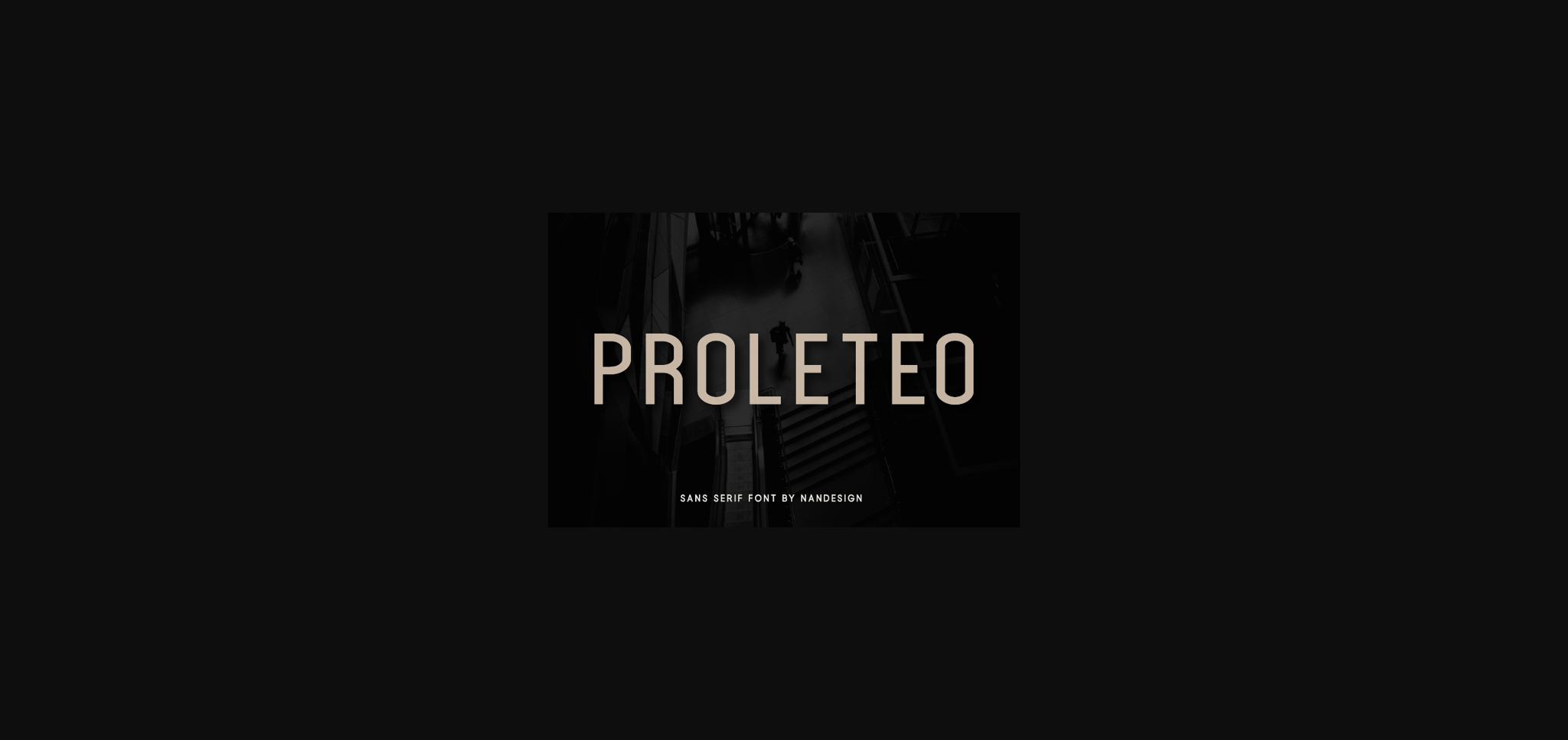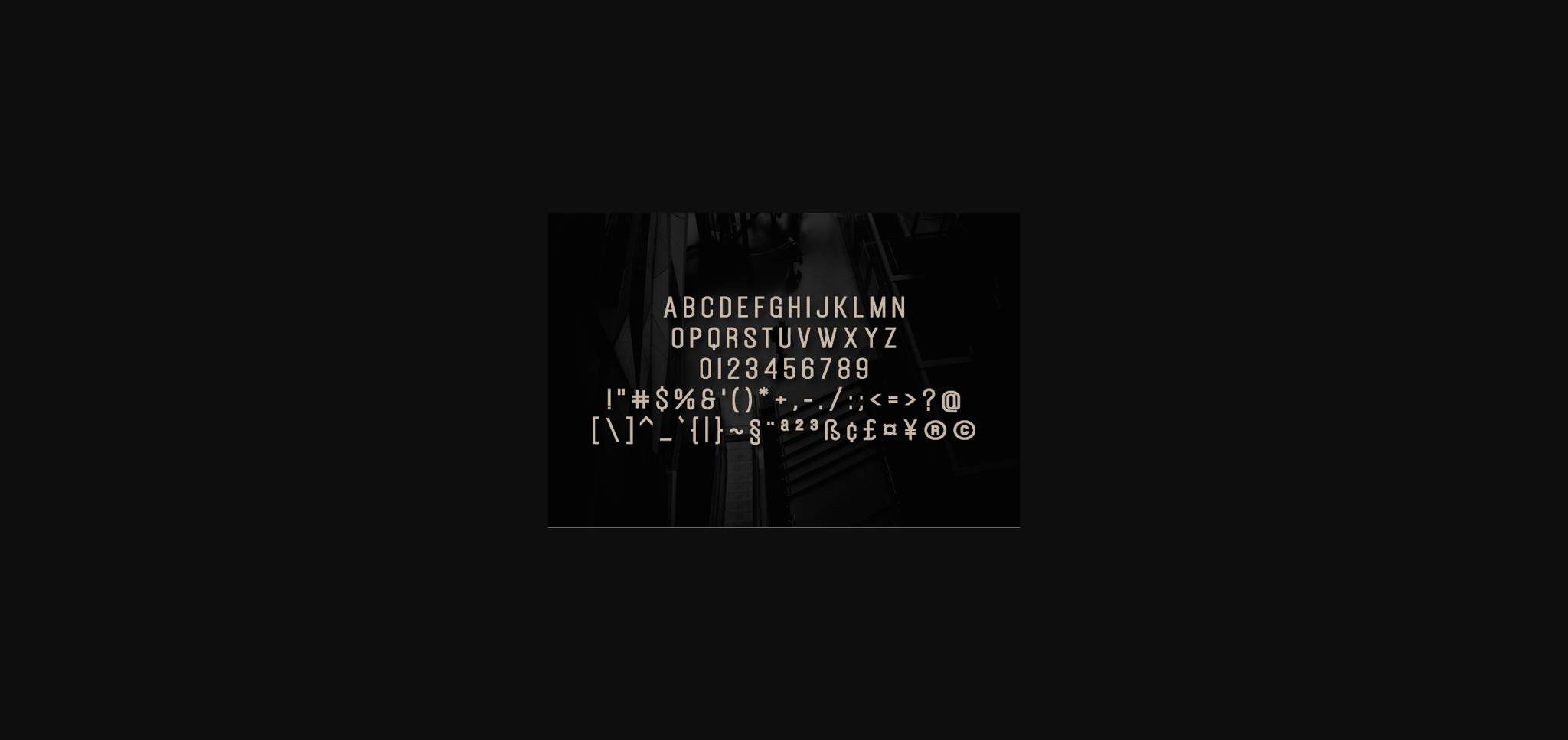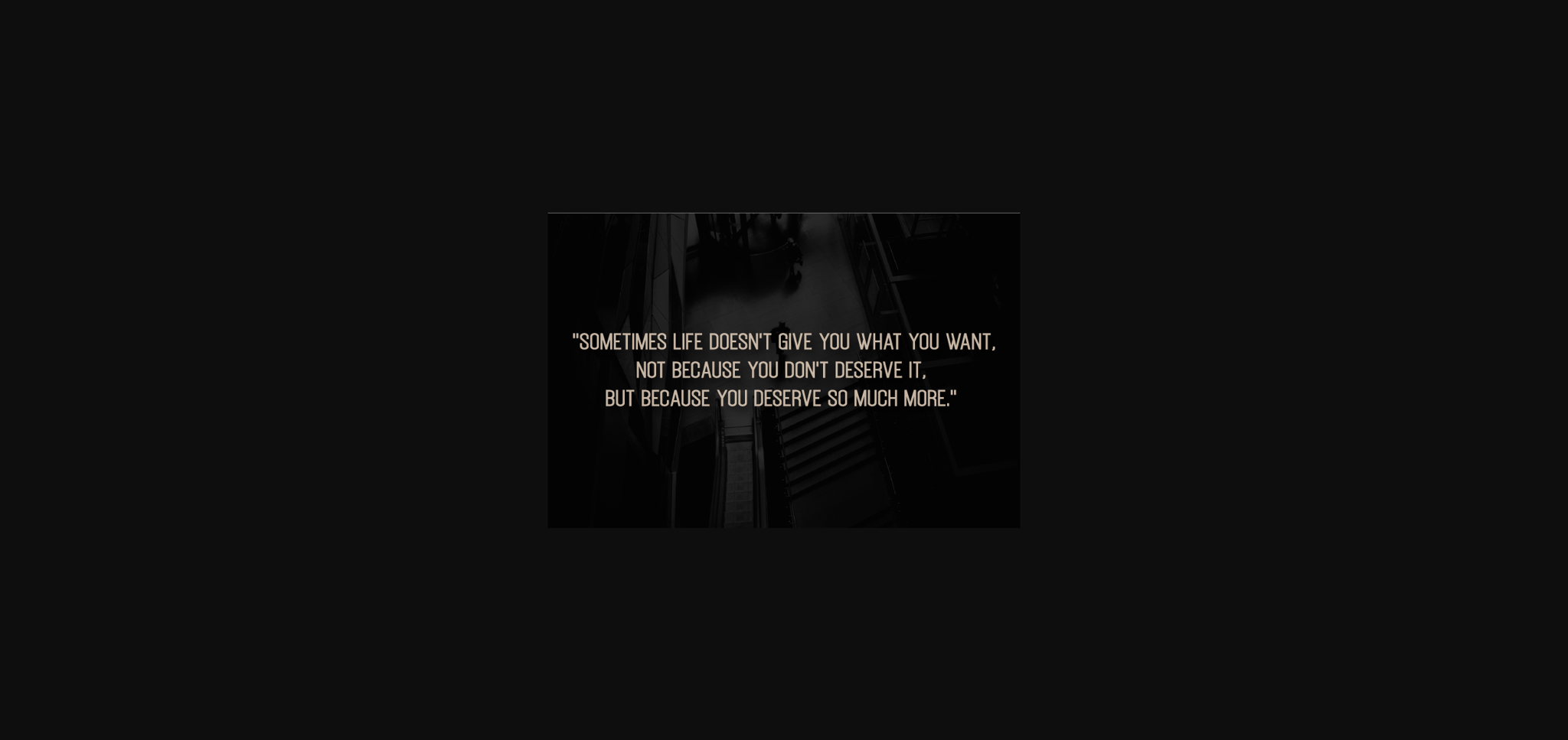
About Proleteo Font
Proleteo is a simple and neat lettered sans serif font. Add this font to your favorite creative ideas and notice how it makes them come alive!